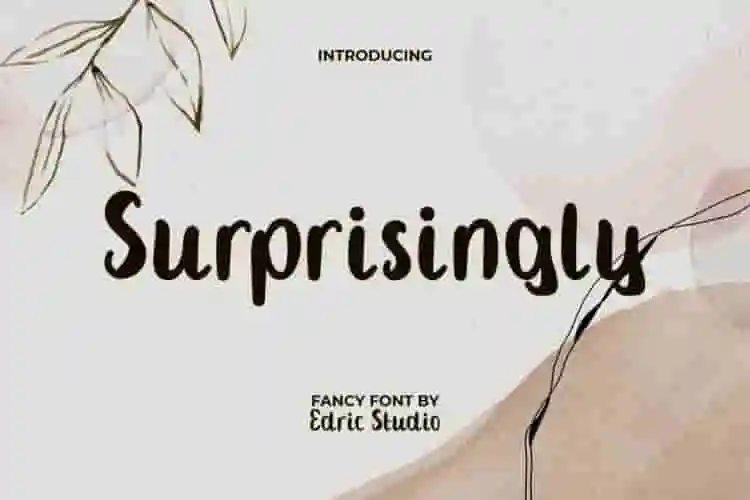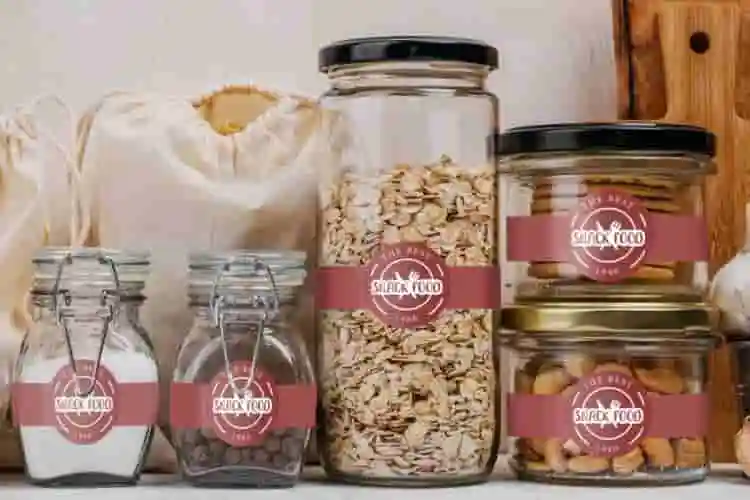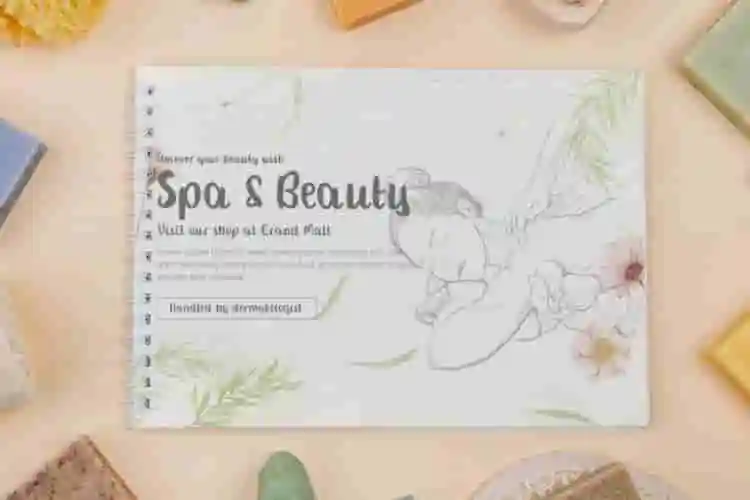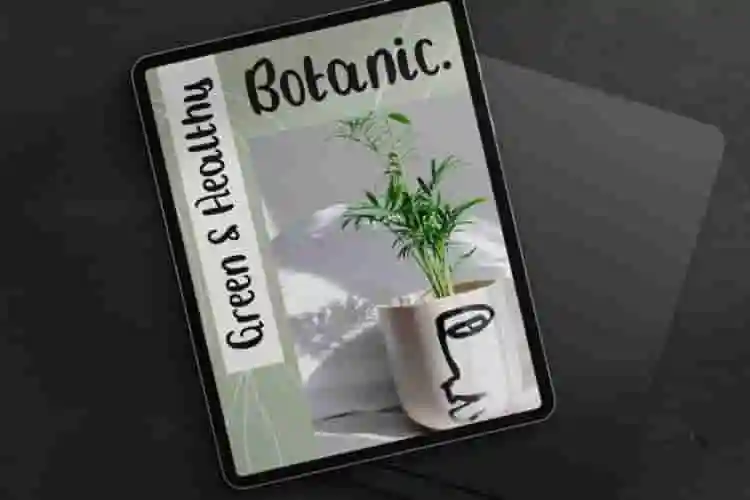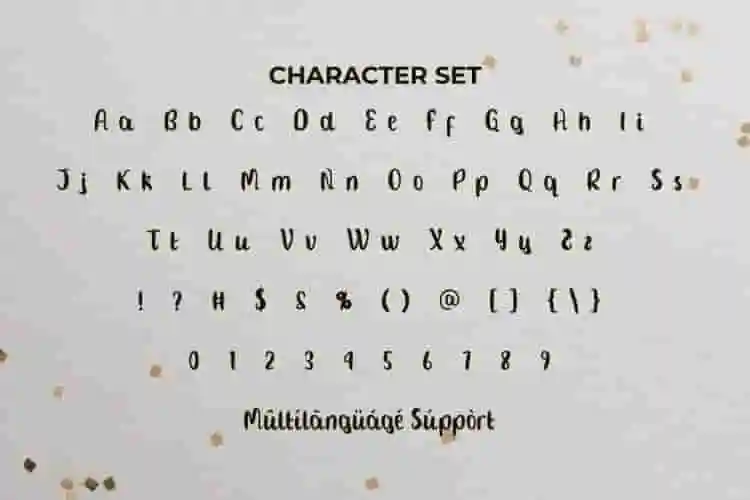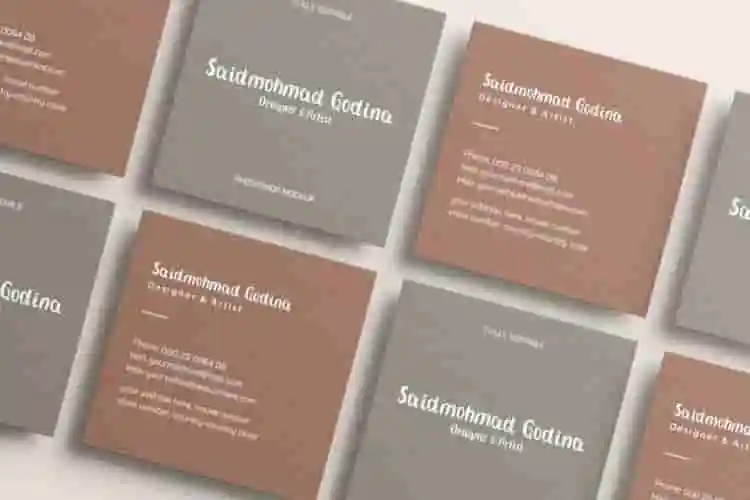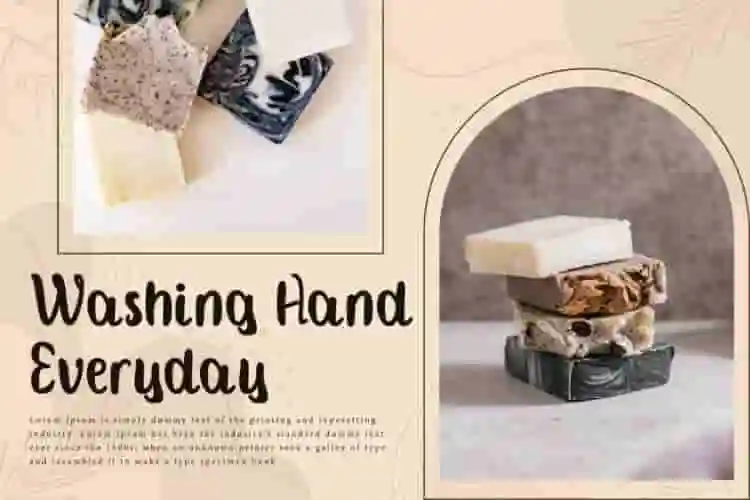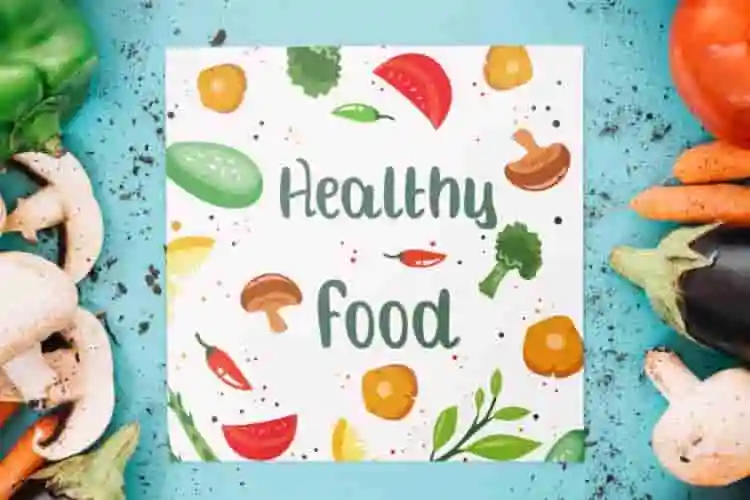
Surprisingly Font is a handwritten font that can give a fancy impression and amaze anyone who sees it. It will make your design look stunning, such as blog, brand image, cover, header, label, mockup design, packaging design, poster, product quote, screen print, signage, stationary, sticker, title, website, word mark, and more!
Surprisingly Font comes with a full set of Uppercase and Lowercase Basic Characters, Number, Punctuation and Symbol. Let’s make your project feel neatly handmade with this collection of fonts, adaptable to a variety of industries such as ads, café, content creator, cosmetic, fashion, graphic design, handicraft, homeware, printing, publishing, retail, skincare, writer, and anything that requires the appearance of an adorable bold font.
Looking for a font that feels personal, elegant, and effortlessly stylish? Meet Surprisingly Fancy, a graceful handwriting font that brings charm and sophistication to any project. With smooth curves and authentic pen strokes, this script font is your new go-to for designs that need a personal yet polished feel.
Whether you’re designing wedding invitations, branding a boutique, or crafting quote art for social media, Surprisingly Fancy delivers that perfect balance between casual and chic. It’s handwritten with love, scanned with precision, and optimized for both print and digital use.
Step into elegance with Surprisingly Fancy, a handwriting font that combines natural charm with refined sophistication. Designed to mimic the fluid strokes of luxury calligraphy, this font is your perfect partner for adding a graceful touch to any creative project.
Looking for a font that speaks with elegance and emotion? Say hello to Surprisingly Fancy, a beautifully crafted handwriting font that adds personality, charm, and a touch of luxury to every project.
- Authentic Handwritten Feel
- Perfectly Versatile